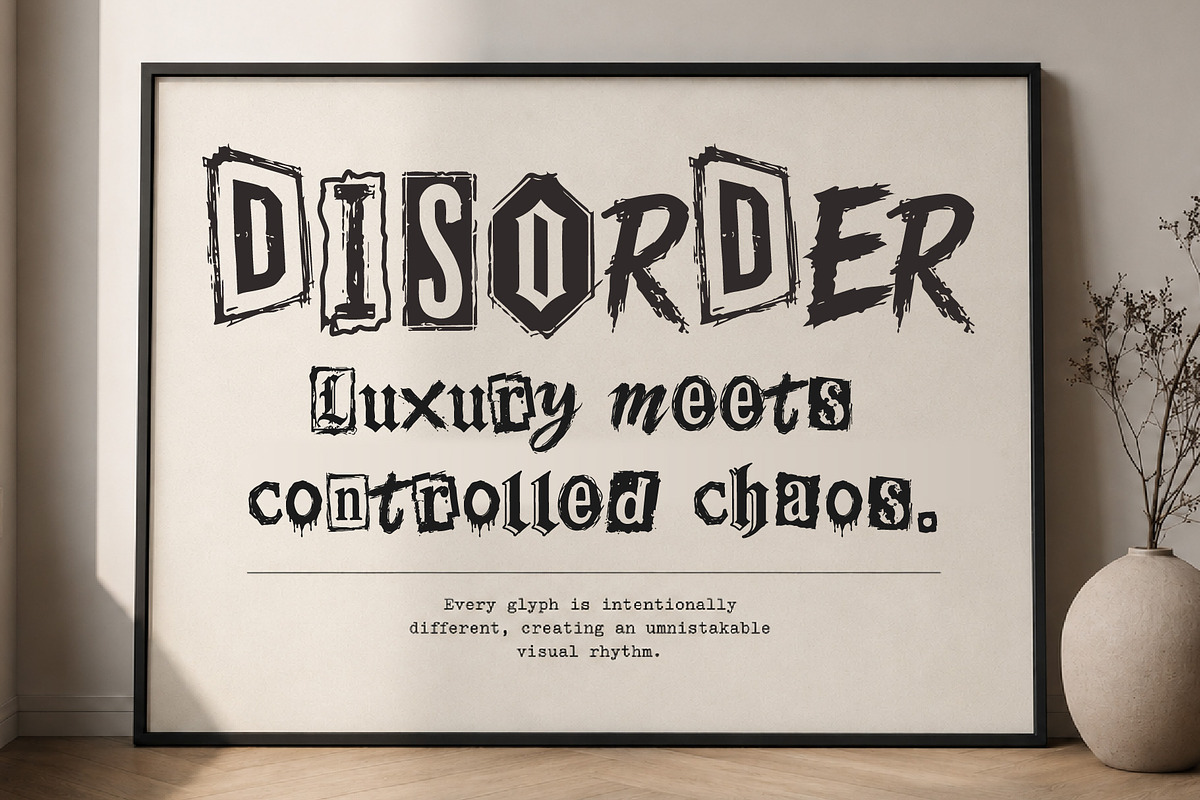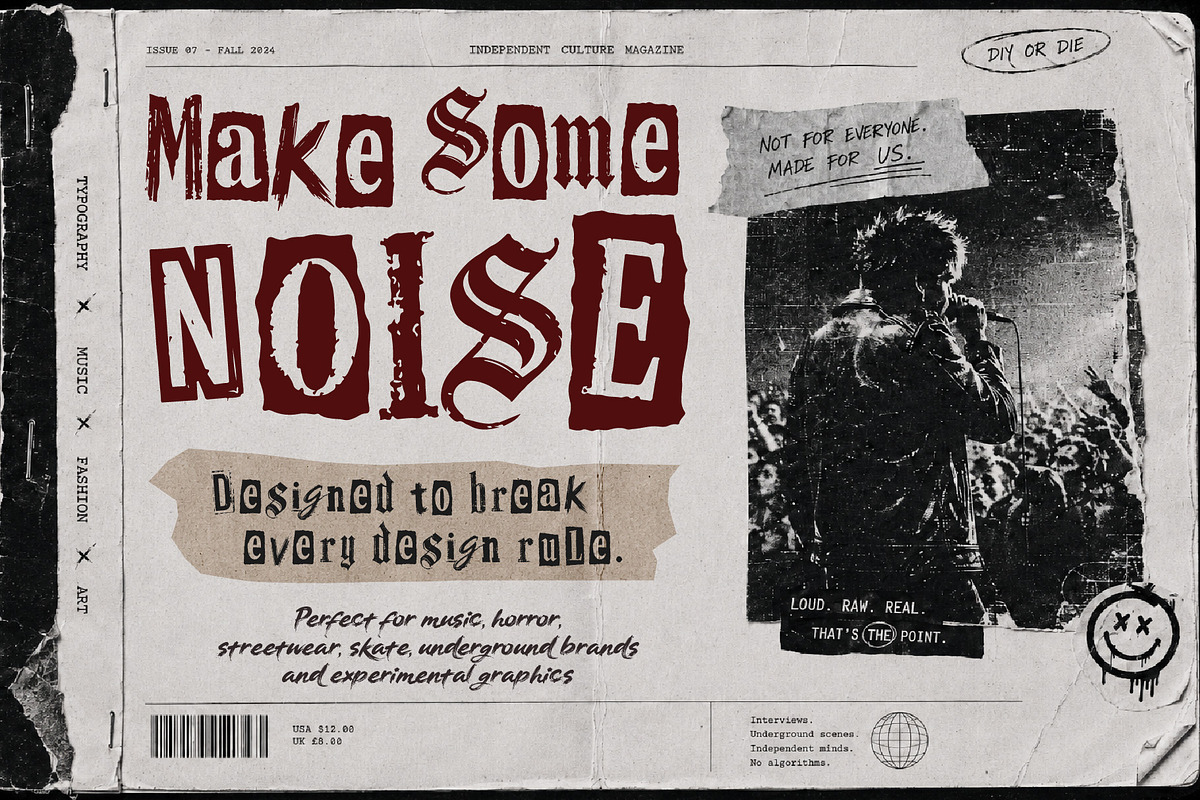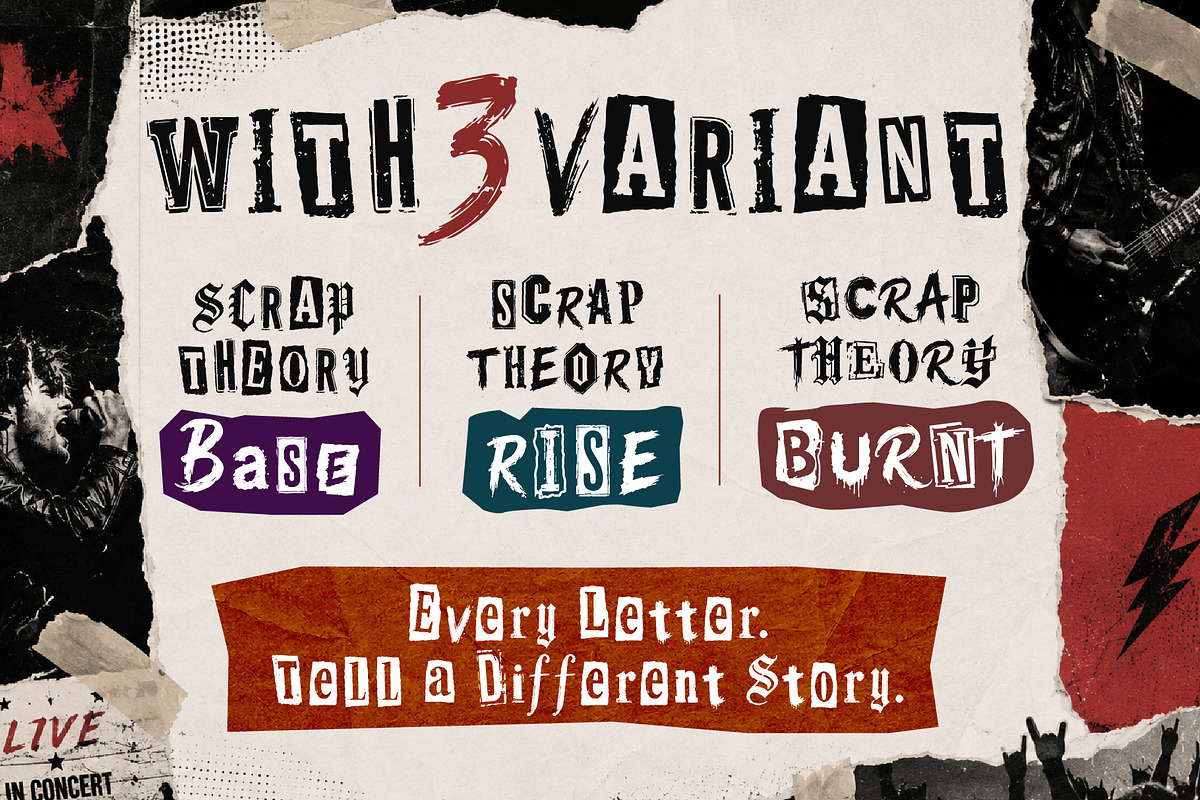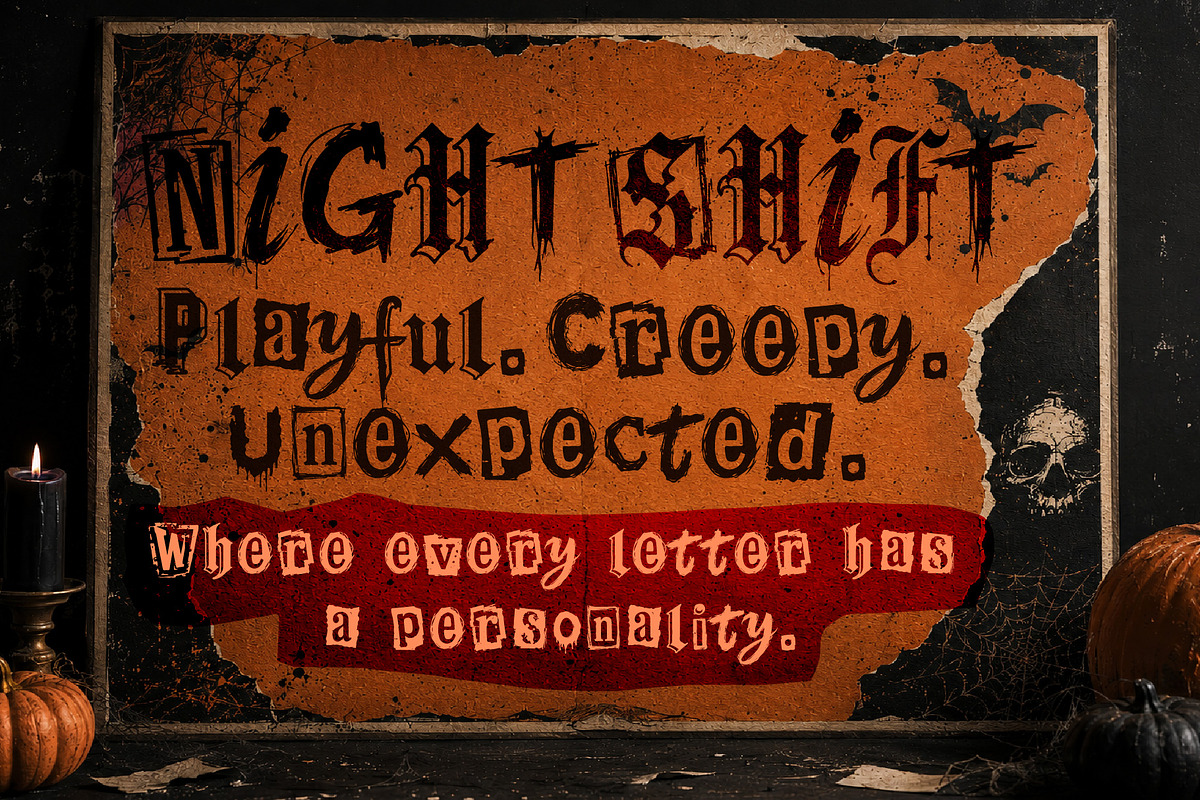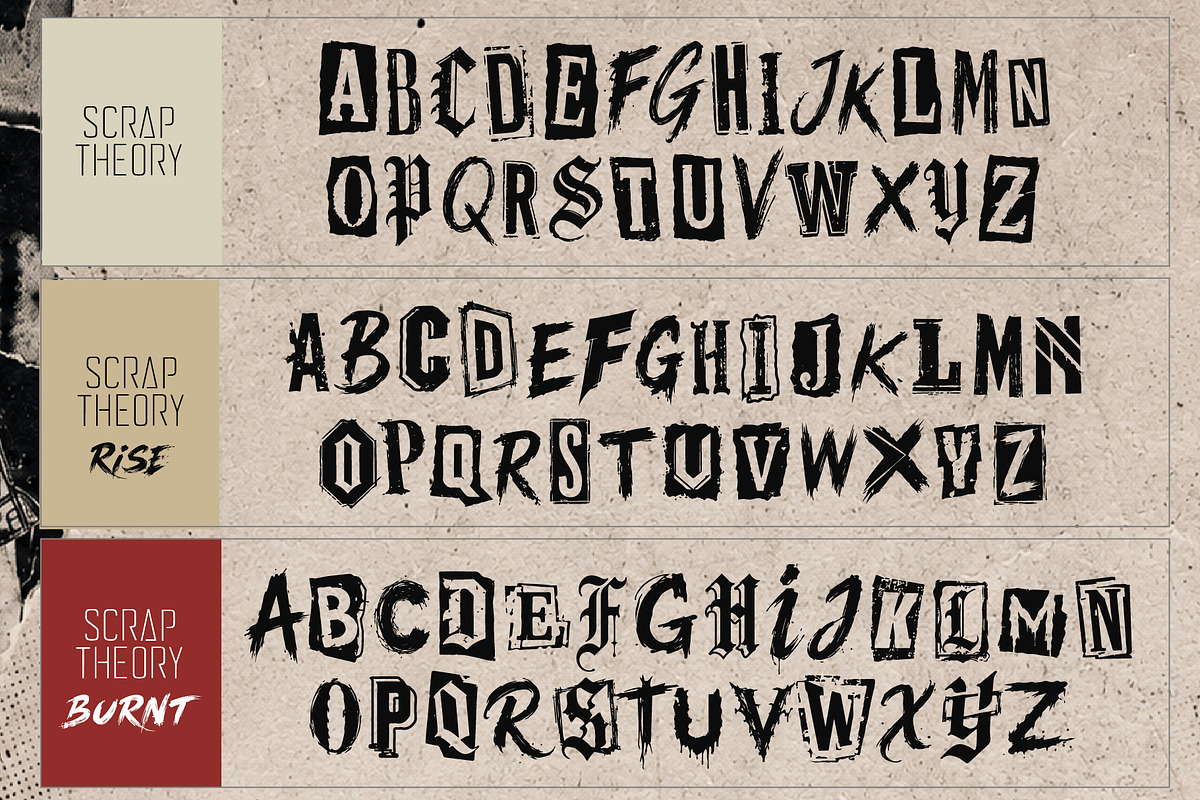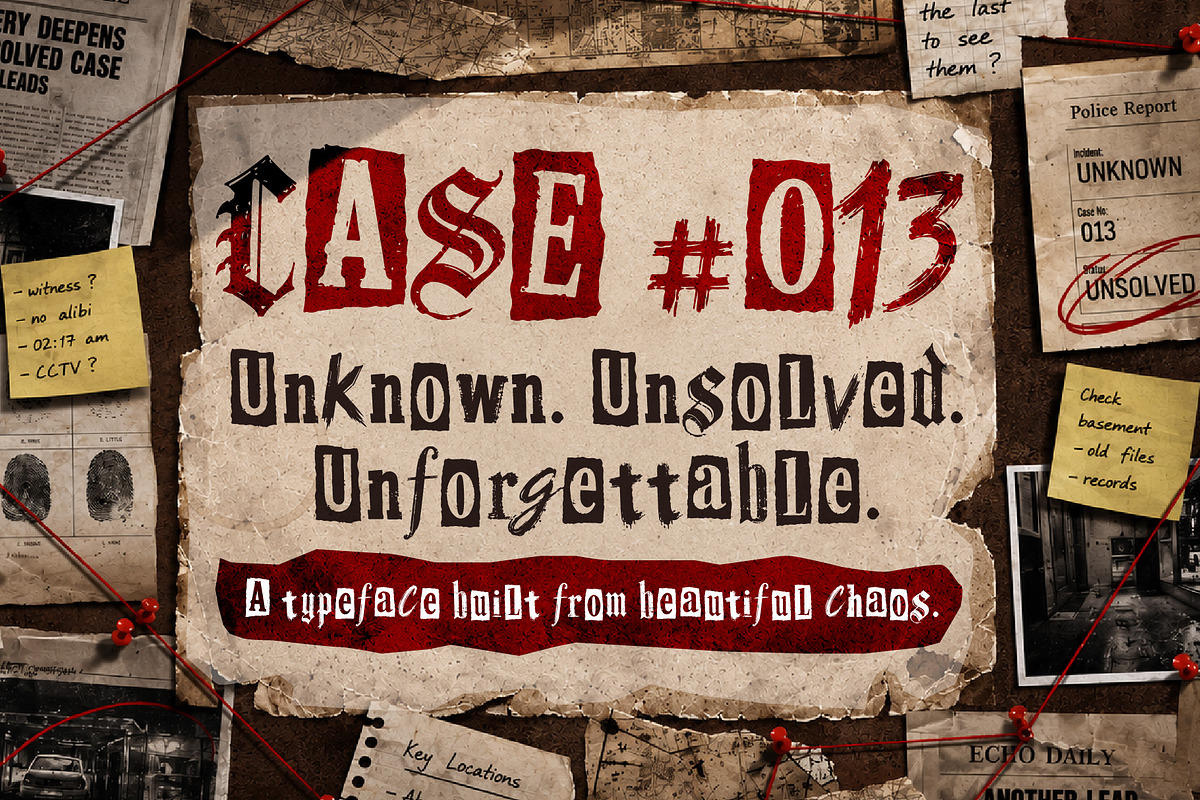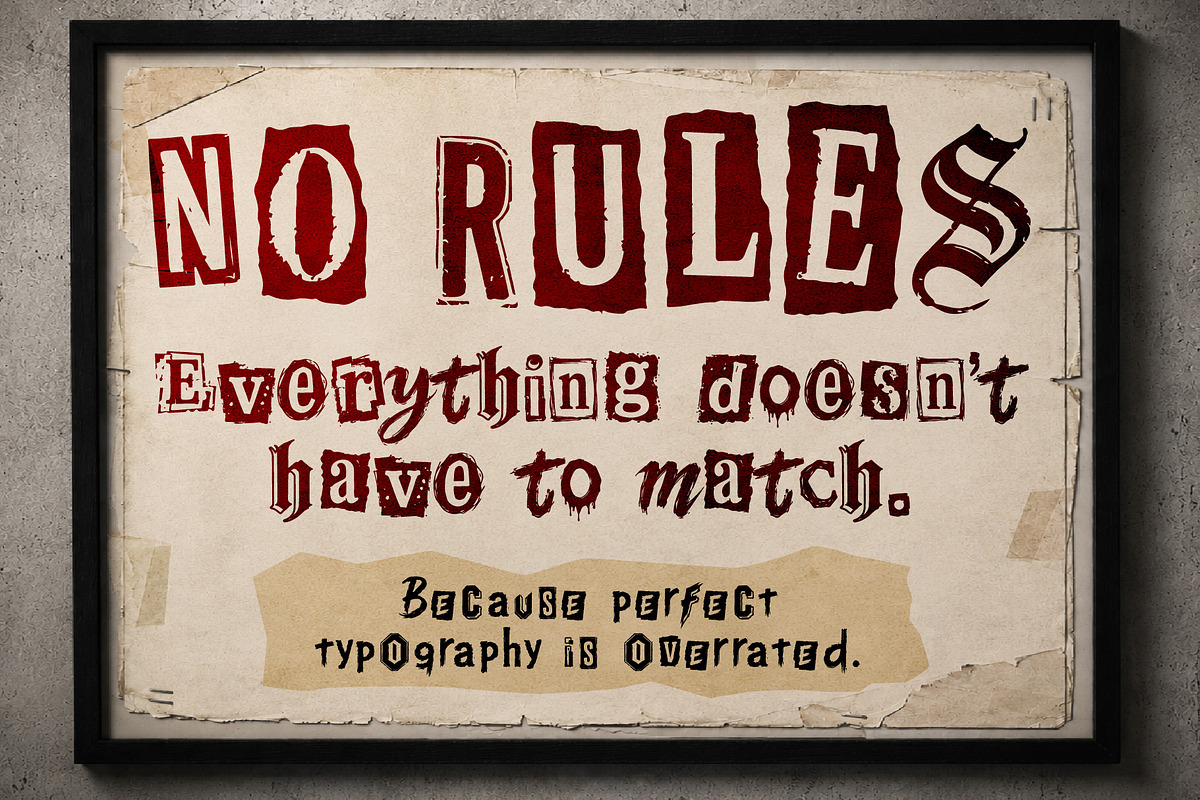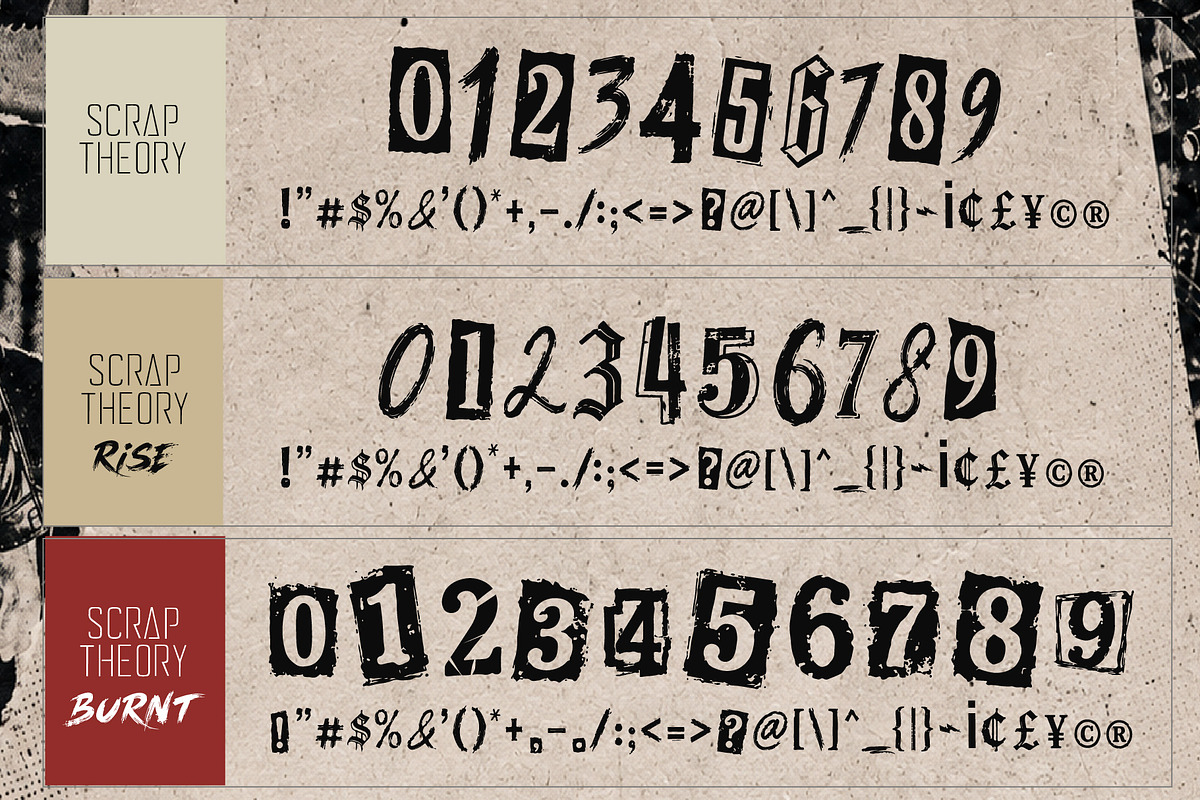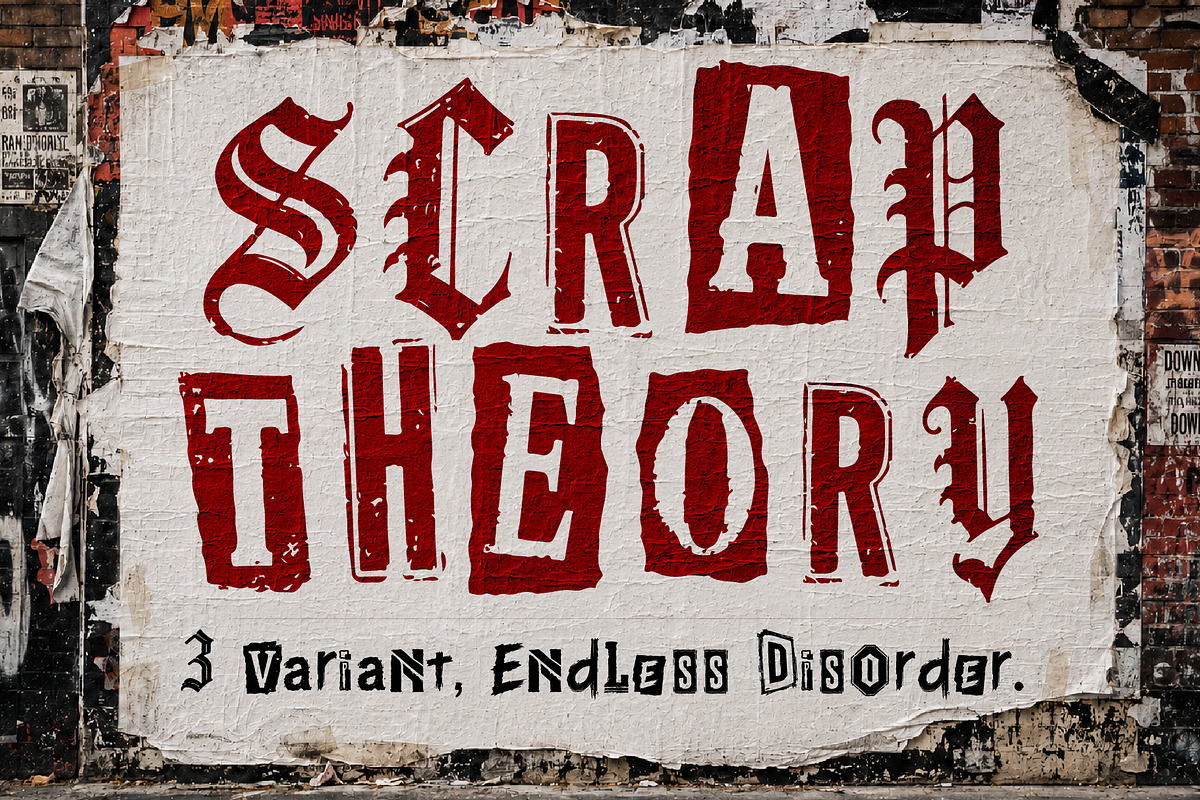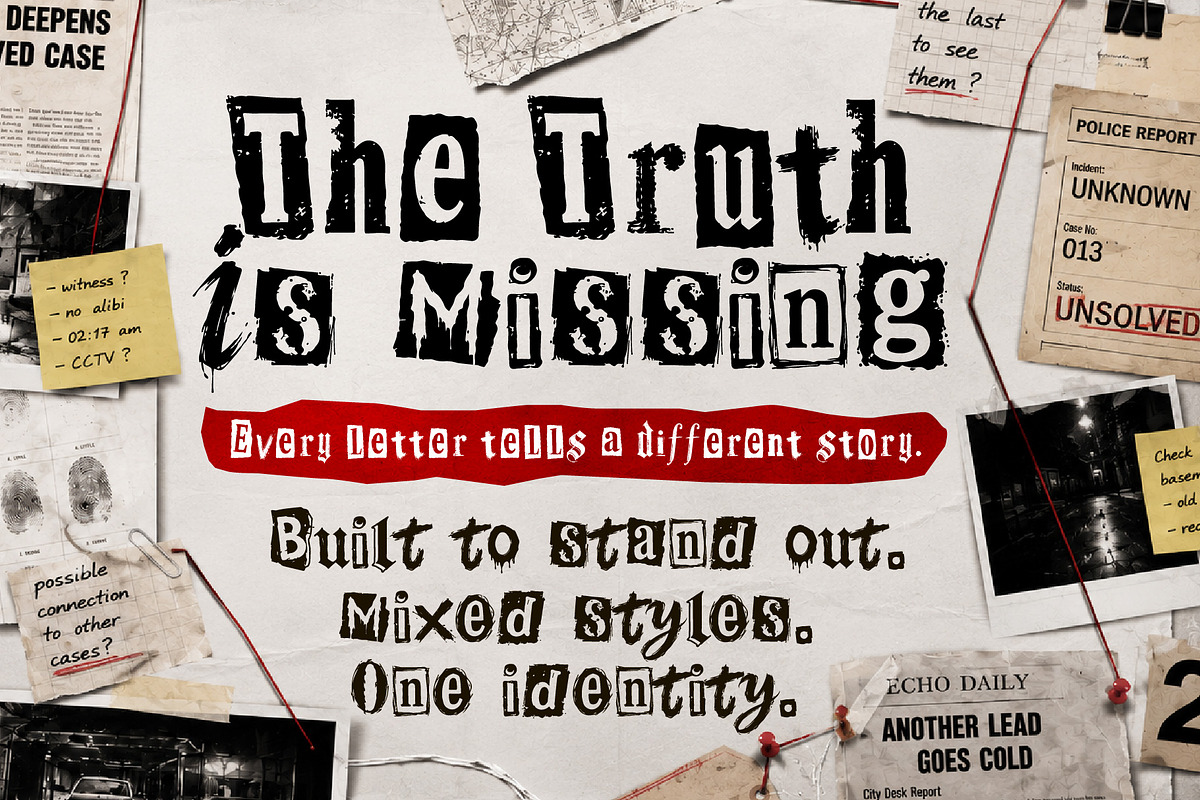
ScrapTheory - Endless Disorder
SCRAP THEORY is a handcrafted ransom-style display font built from an eclectic mix of typography influences. Every glyph has its own personality, blending collage aesthetics, newspaper cutouts, raw paper cuts, grunge textures, horror, serif, gothic, handwritten, and vintage styles into one cohesive type system. Designed to create bold, rebellious headlines with an authentic DIY feel, it's perfect for posters, album covers, branding, apparel, packaging, social media, editorial layouts, and experimental graphic design.
The family includes three unique styles:
SCRAP THEORY – The original mixed ransom collection with balanced collage aesthetics.
SCRAP THEORY RISE – A sharper variation with bold contrast and stronger visual impact.
SCRAP THEORY BURNT – A distressed edition featuring Grunge edges, worn textures, and aged paper details for a darker, grittier look.